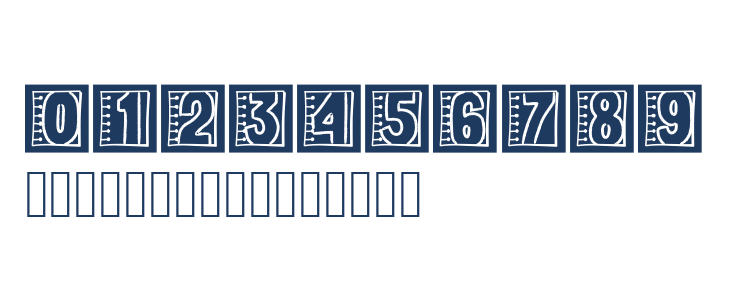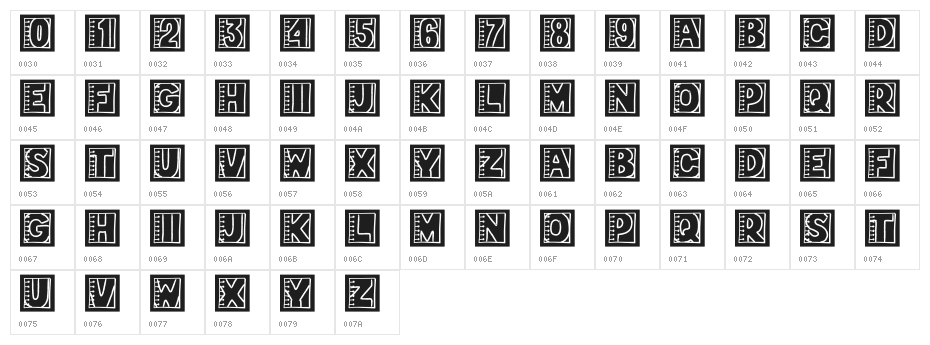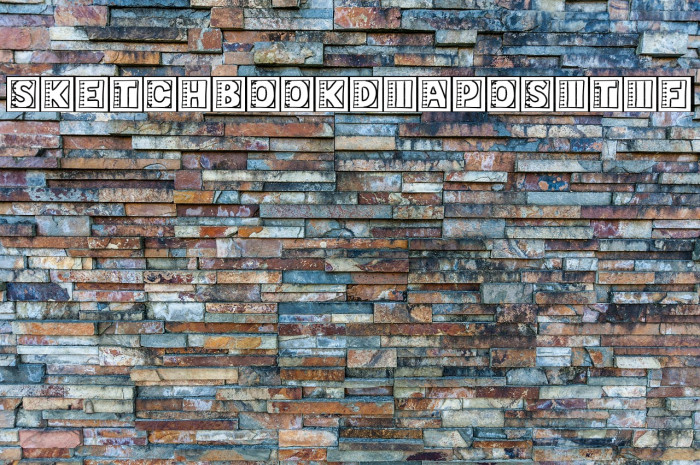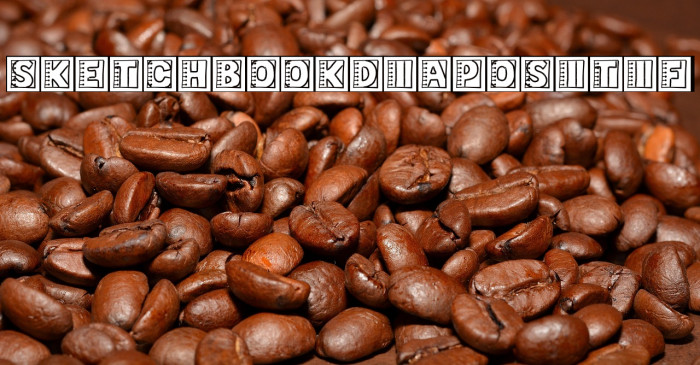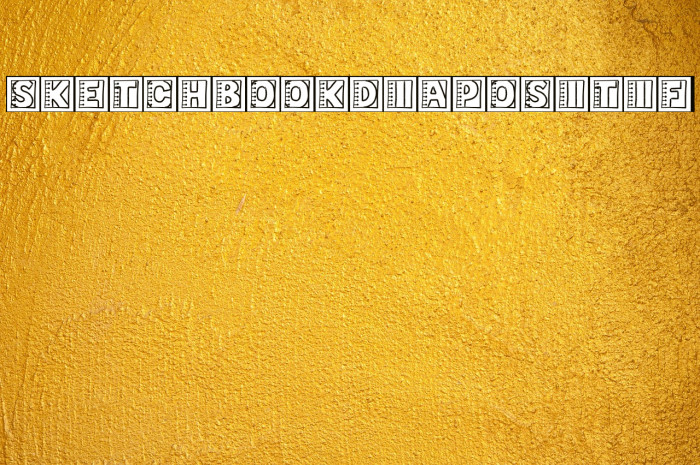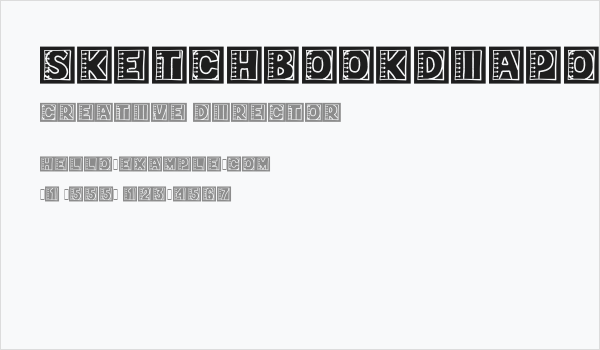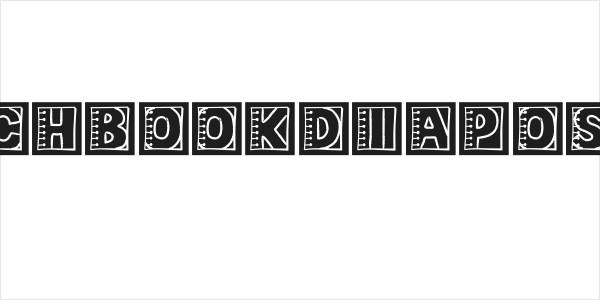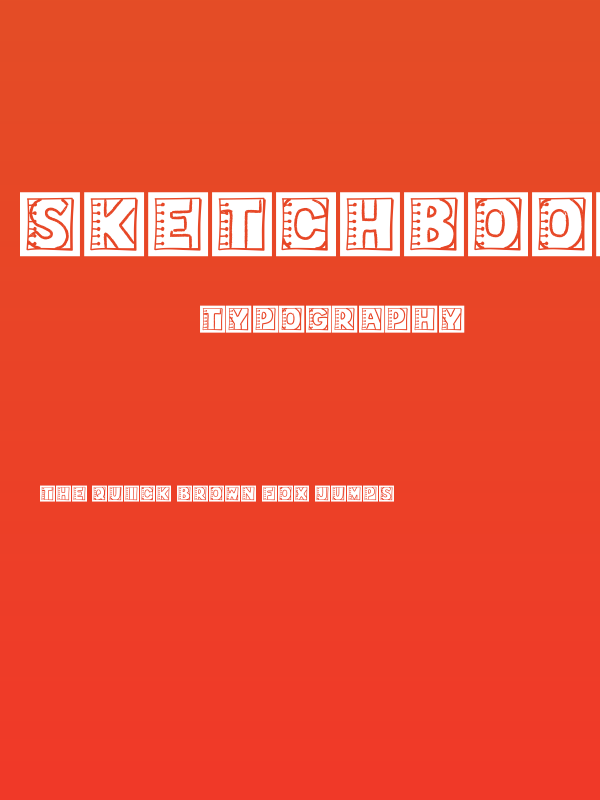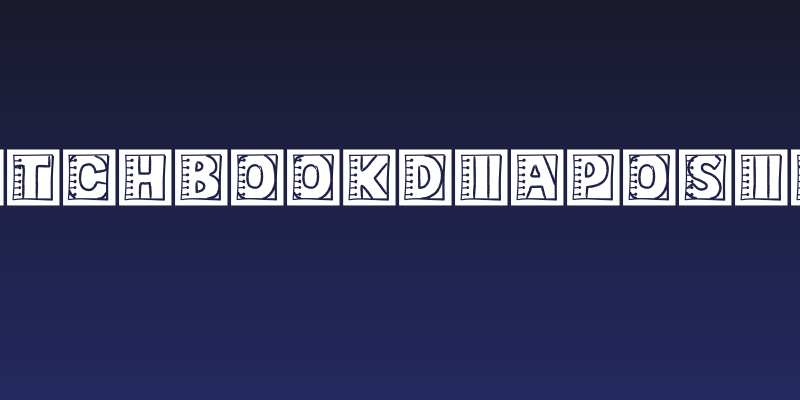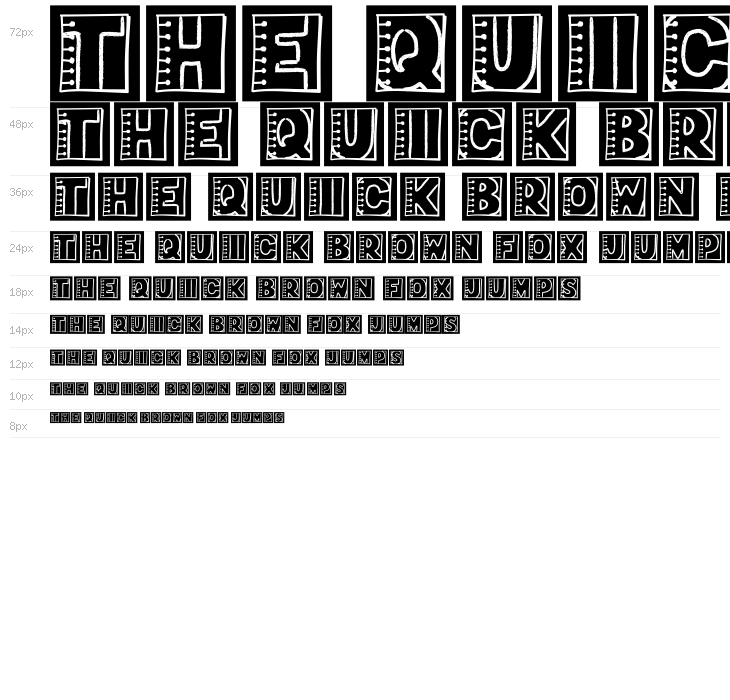
SketchbookDiapositif Font
SketchbookDiapositif Description
This font features a playful and artistic style, with each character enclosed in a square frame. The letters and numbers have a hand-drawn, sketch-like appearance, giving them a whimsical and creative feel. The strokes are uneven, adding to the casual and informal aesthetic. The font is highly decorative, making it suitable for projects that require a unique and eye-catching design. The characters are bold and stand out against the background, making them easy to read despite their artistic nature.
| Proposed Projects | Ideal for children's book covers, creative posters, art projects, and playful branding. |